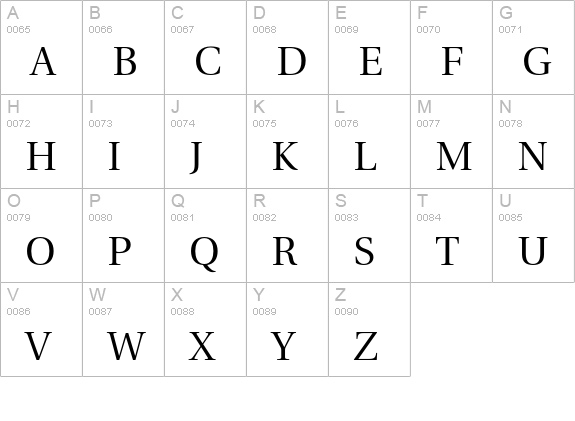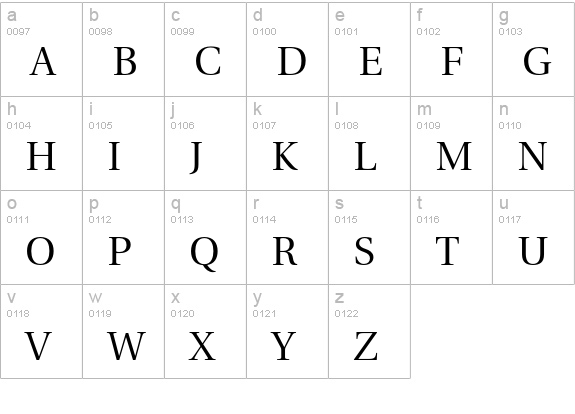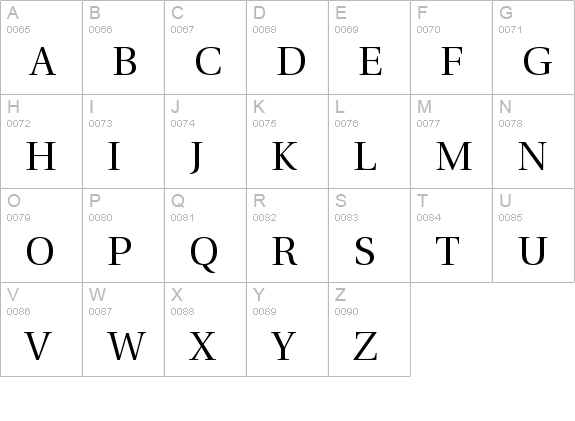
Utopia Titling Capitals Font Details
Introducing Utopia Titling Capitals, a captivating font that exudes elegance and sophistication. With its sleek and refined letterforms, this typeface is perfect for adding a touch of class to any design project. Utopia Titling Capitals is meticulously crafted to convey a sense of timeless beauty and grace. Its clean lines and balanced proportions make it versatile and well-suited for a wide range of applications, from branding and editorial design to packaging and signage. This font showcases a harmonious combination of classic and contemporary design elements, resulting in a typeface that is both visually striking and highly legible. Each letter is meticulously crafted to perfection, ensuring consistent and flawless typography in every use. But what truly sets Utopia Titling Capitals apart is its availability as a free download at FontsMarket.com. Yes, you read that right – this exceptional font can be yours without any cost. FontsMarket.com is proud to offer this font to designers and creatives around the world, allowing them to unleash their creativity without any constraints. Whether you're a professional designer or a hobbyist, Utopia Titling Capitals is a must-have addition to your font library. Its versatility, elegance, and affordability make it an indispensable tool for any creative project. So don't miss out on this incredible opportunity – head over to FontsMarket.com and get your hands on Utopia Titling Capitals today!